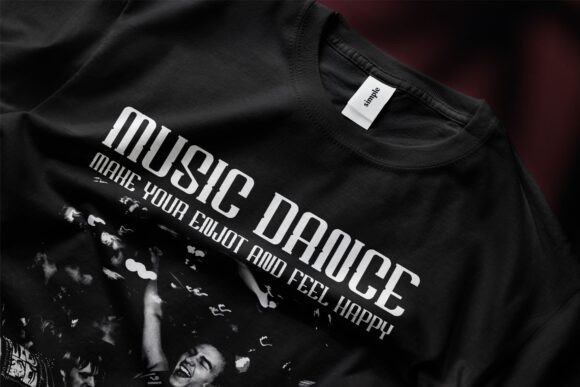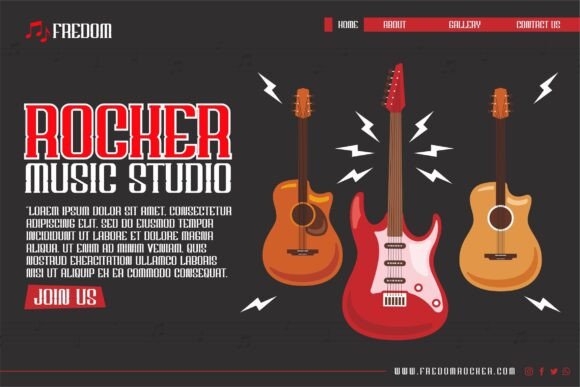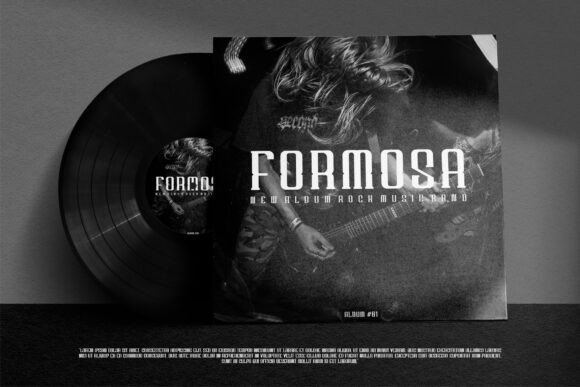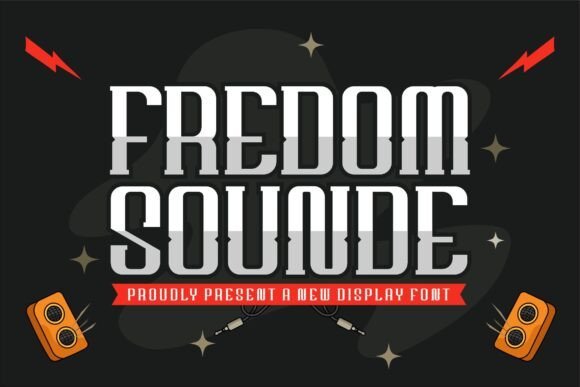
The **Fredom Sounde** font is a bold display typeface that exudes strength and modernity with its clean, simple lines.
Designed with a music theme in mind, it reflects the free-spirited and dynamic energy often associated with music festivals, concerts, or music industry branding Its sturdy letterforms provide high readability while still standing out, making it perfect for posters, logos, or large headlines that require a bold yet minimalist visual impact.